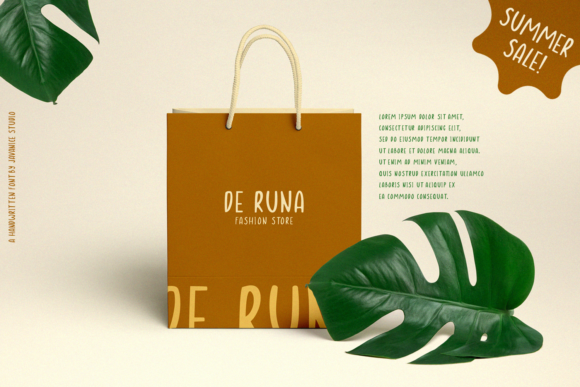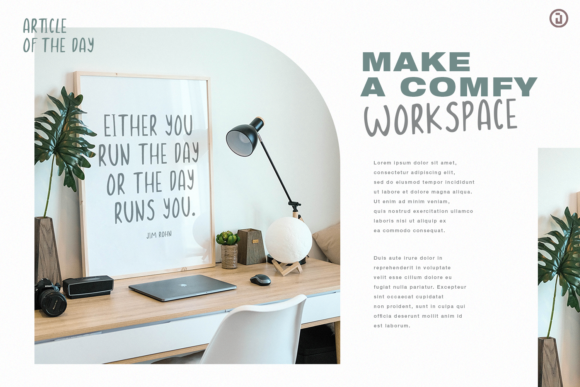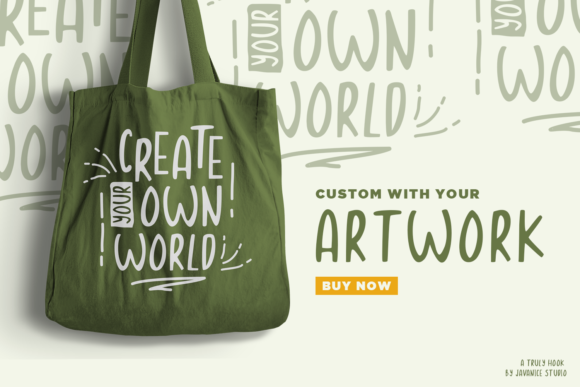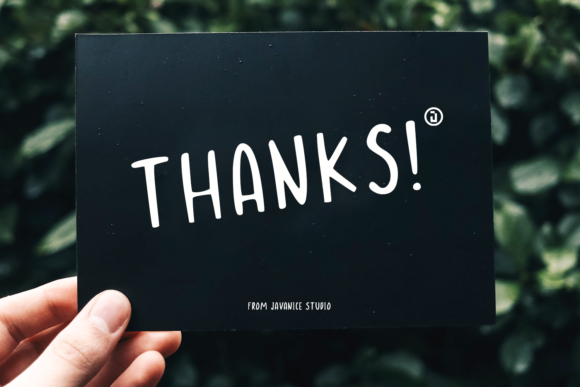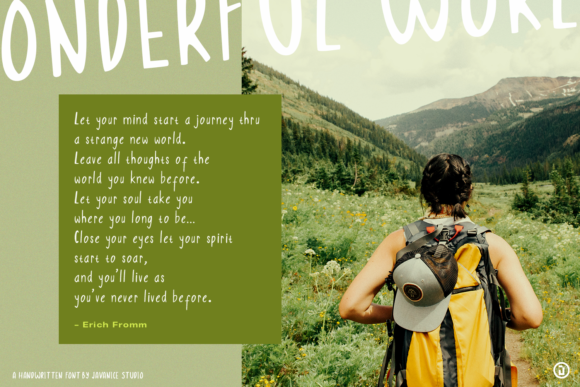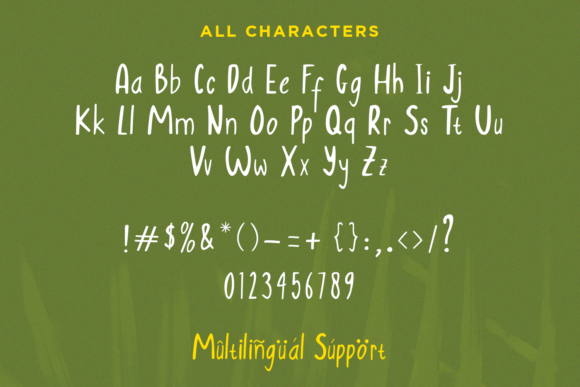
A Truly Hook Font
About A Truly Hook Font
“A Truly Hook” is a casual and friendly handwritten font designed to bring a warm and approachable feel to your projects. Its versatile nature makes it suitable for a wide range of applications, including branding projects, apparel design, labels, magazines, books, greeting or wedding cards, packaging, fashion, makeup, stationery, and various advertising purposes. This font is crafted to seamlessly express words above different backgrounds, making it a flexible and engaging choice for designers looking to infuse a casual and friendly vibe into their creations.
The handwritten style of “A Truly Hook” adds a personal touch, making it ideal for projects where authenticity and a sense of warmth are desired. Whether applied to print or digital media, this font imparts a laid-back and friendly aesthetic, creating a connection with the audience.
In summary, “A Truly Hook” is not just a font; it’s a tool that invites you to communicate with a casual and friendly tone. Its adaptability to diverse design purposes makes it a valuable asset for designers seeking a versatile handwritten font that can add a touch of approachability to a wide range of creative projects.